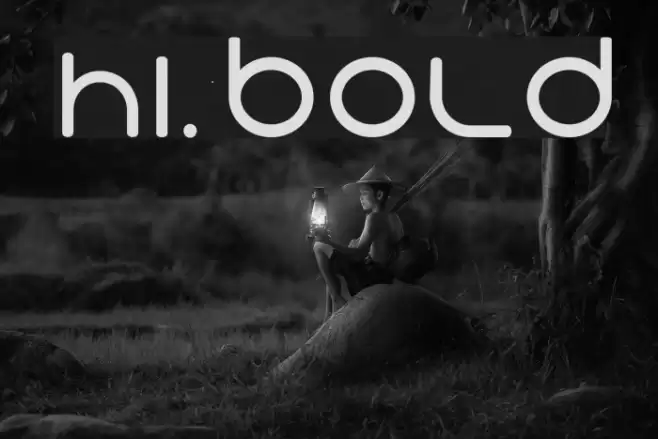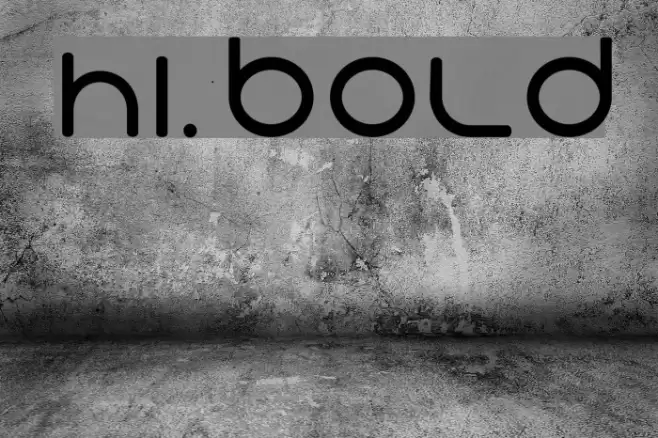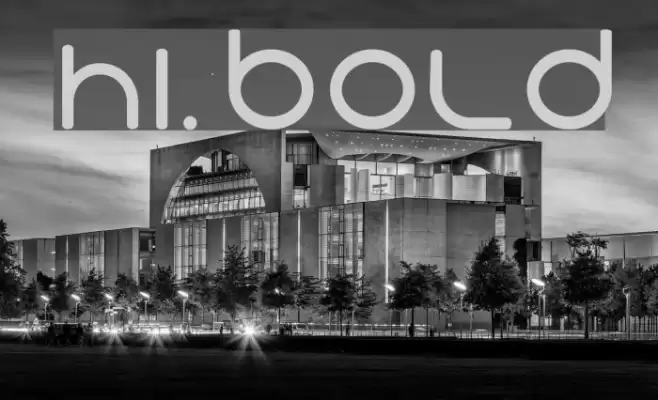
Hi. Bold Font
Hi. Bold Description
This font features a modern, rounded design with a clean and futuristic aesthetic. Each character is crafted with smooth curves and consistent line thickness, creating a harmonious and balanced appearance. The letters are evenly spaced, contributing to a sleek and organized look. The font's geometric shapes and minimalistic style make it highly legible and versatile for various design applications. Its contemporary feel is ideal for projects that require a fresh and innovative touch.
A modern, rounded font with a clean and futuristic design from Uncategorized fonts.
- Proposed Projects: Ideal for tech branding, modern advertising, user interfaces, and digital media.
- Use Case: Headlines, Logos, Digital media